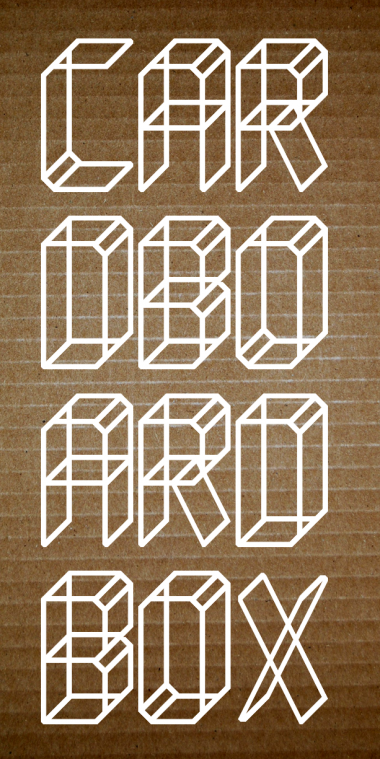
cardboard box
Nice work, ben17!
Great 3D folding.
Great work!
Nice!
I'm with the guys! Complete it, pleaseee!
Awesome.
Awesome stuff!
Very cool! I hope you will make a fuller charset.